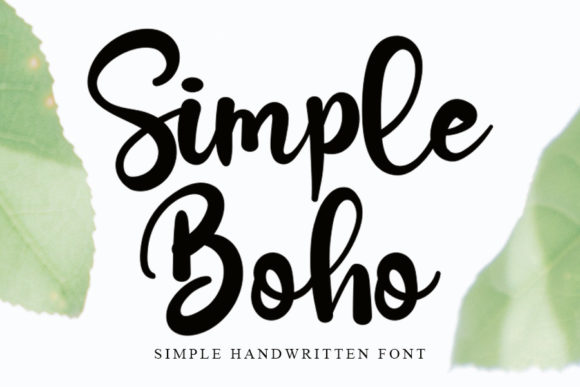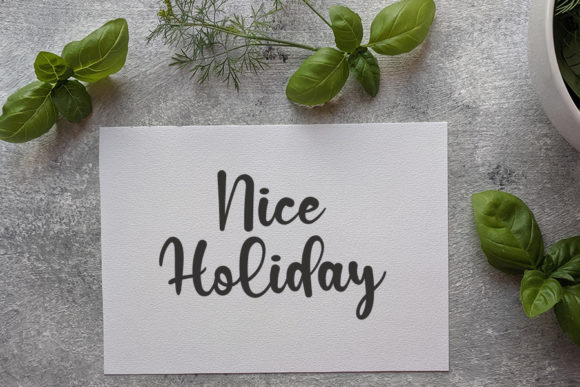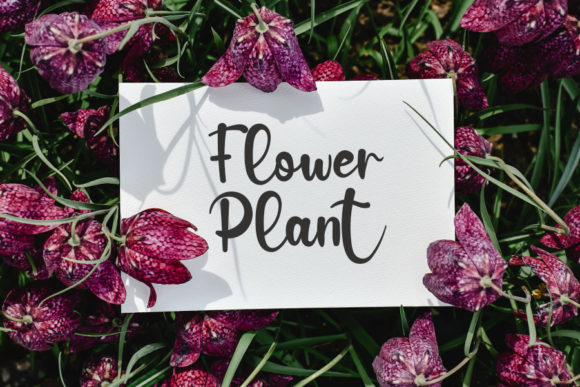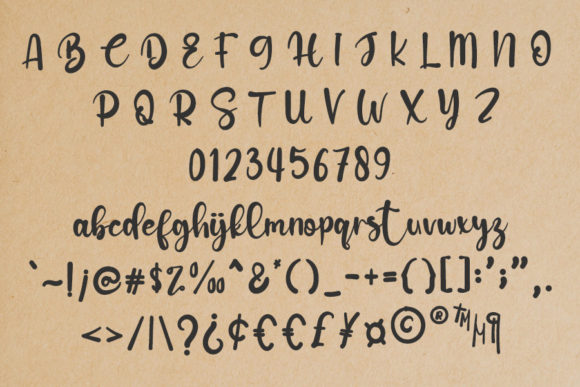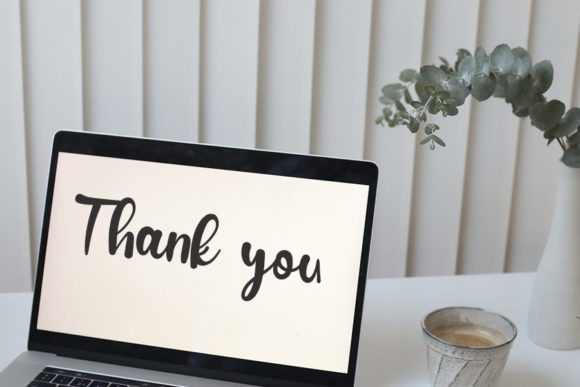
Simple Boho Font
Simple Boho is a friendly handwritten font, carefully designed to become a true favorite. It maintains its classy calligraphic influences while feeling contemporary and fresh.